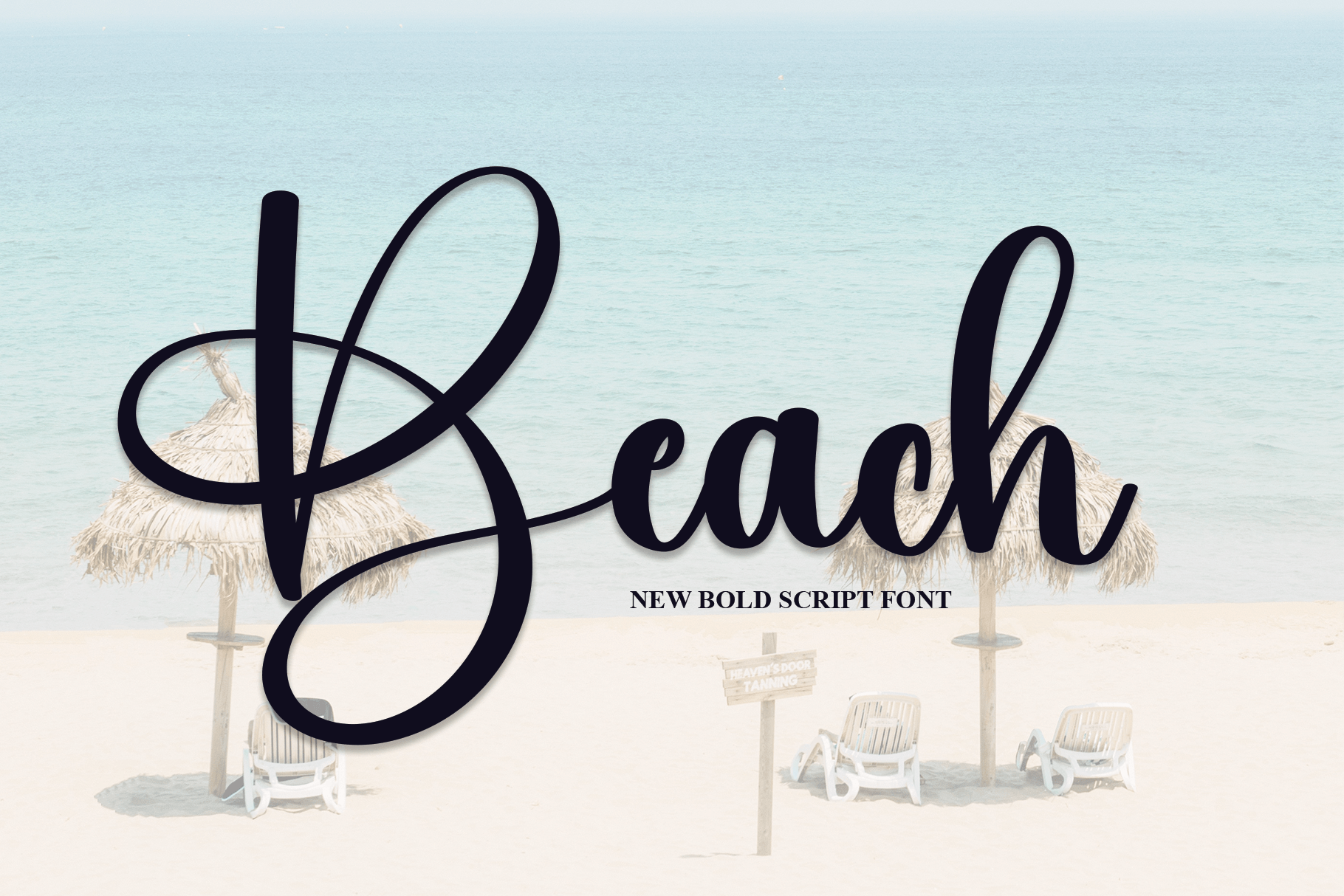
This font’s latest style letters are perfect for wall displays, wedding invitations, social media post logos, advertisements, product packaging, product designs, labels, photography, watermarks, invitations, stationery, and any project that requires handwritten taste.